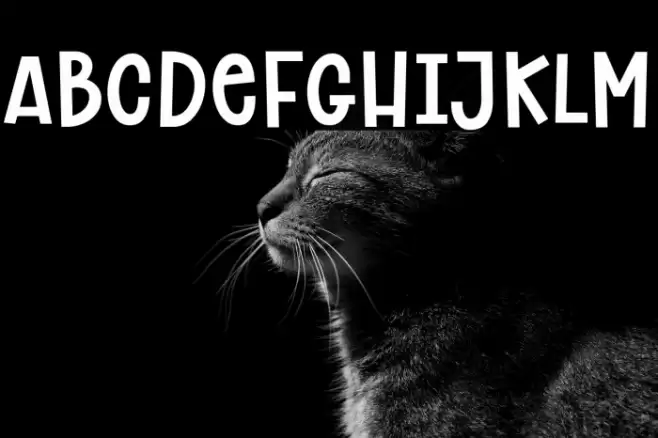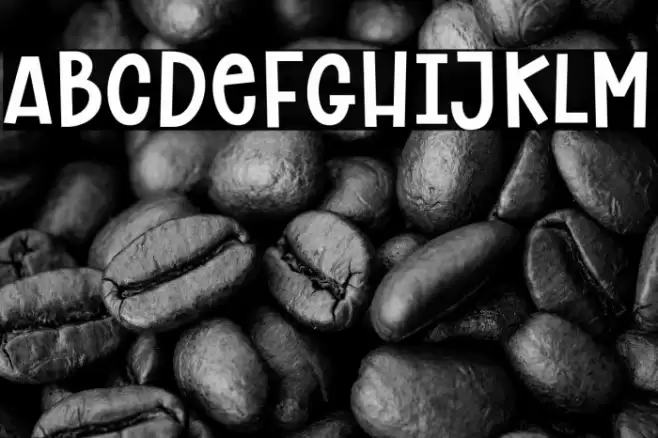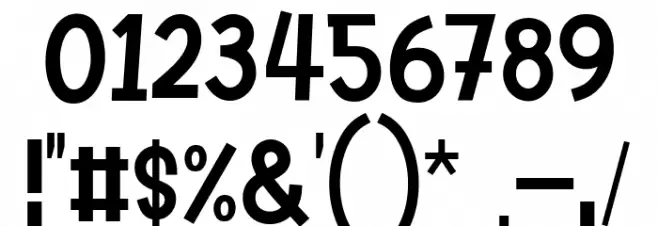
Chicken Dinner Font
Chicken Dinner Description
This playful and bold font features a hand-drawn aesthetic with a slightly irregular baseline, giving it a whimsical and informal feel. The letters are thick and rounded, with a consistent stroke width that maintains readability while adding a touch of fun. The uppercase and lowercase letters are distinct, with the uppercase being more angular and the lowercase more rounded. The numerals and special characters follow the same playful style, making this font versatile for various creative projects. Its unique charm makes it stand out, perfect for designs that require a personal and approachable touch.
A playful, bold font with a hand-drawn, whimsical style from Cartoon fonts.
- Proposed Projects: Ideal for children's books, playful branding, greeting cards, and creative posters.